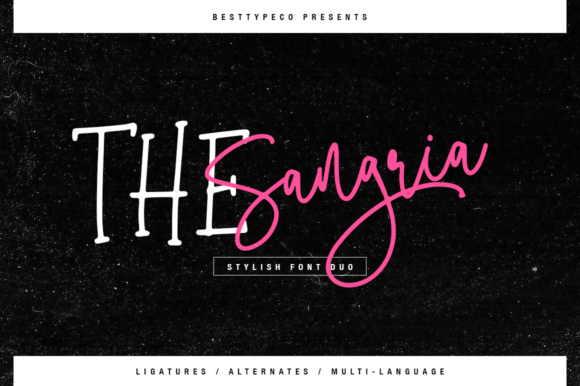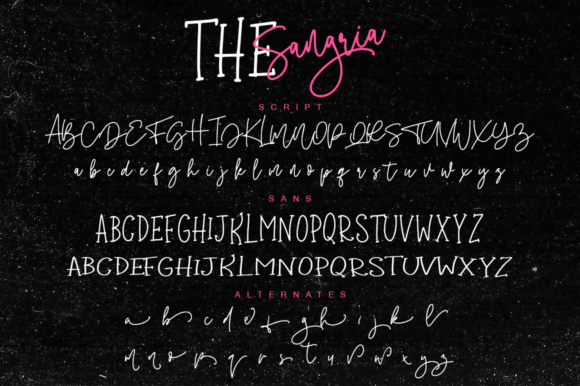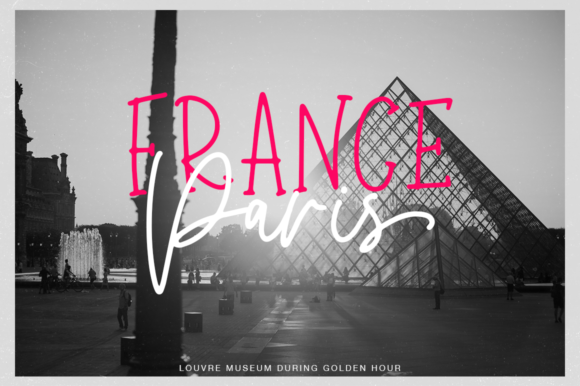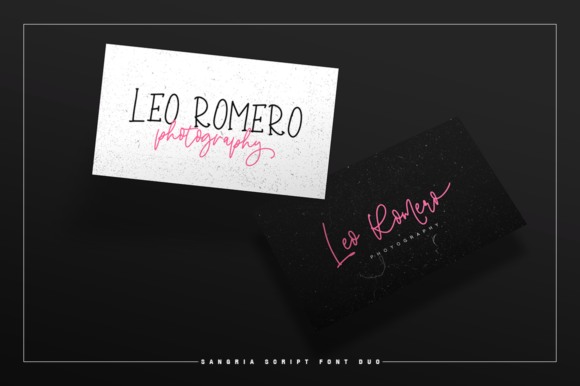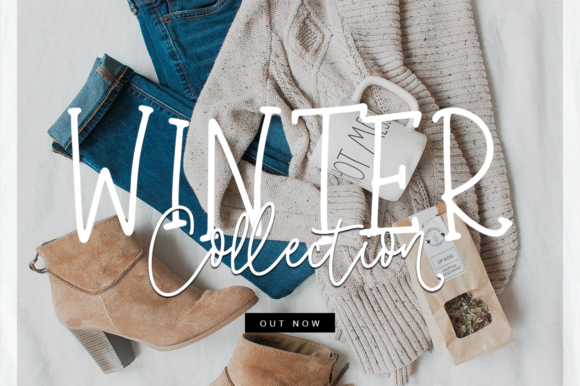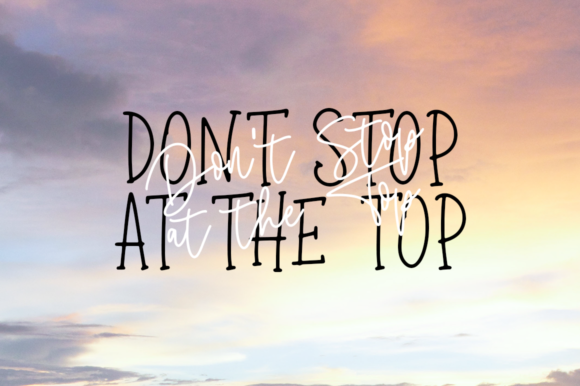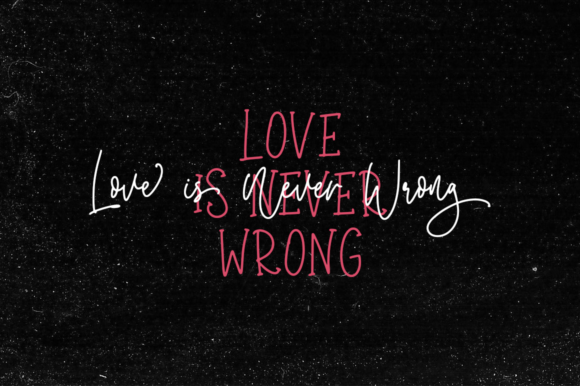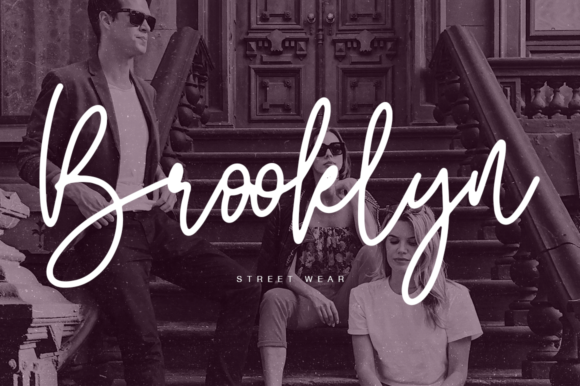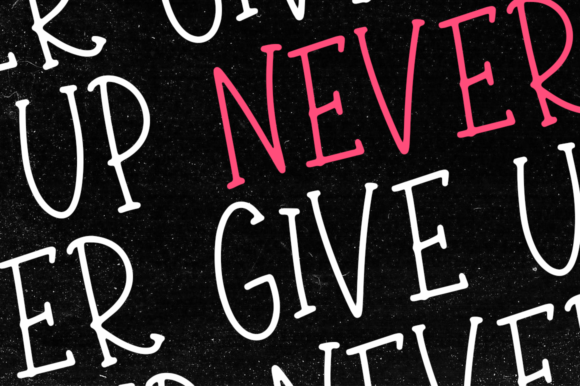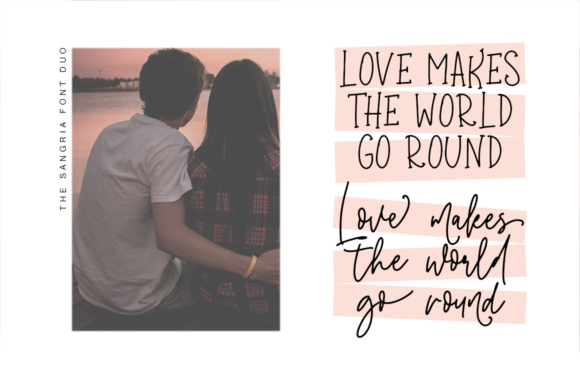
The Sangria Duo Font
About The Sangria Duo Font
The Sangria is an amazing font duo. It comes with an elegant script version and a striking sans serif version. Both styles can be combined perfectly but are also great to use on their own.
Very suitable for greeting cards, branding materials, business cards, quotes, posters, and more!